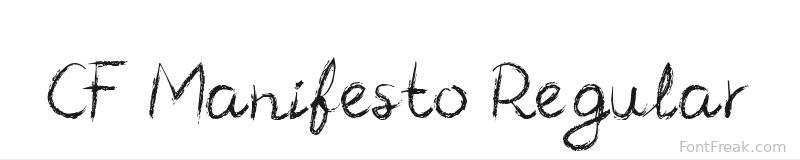
CF Manifesto Regular
CF Manifesto Regular by Cloutierfontes is a unique handwritten font that captures an organic and artistic flair. This font is characterized by its playful strokes and a casual, yet elegant appearance, making it a standout choice for various creative projects. The strokes exhibit a moderate weight, providing a nice balance between legibility and artistic expression. The slight variations in line thickness create a dynamic contrast that adds depth to any text, while the natural spacing enhances readability, making it perfect for both headings and body text.
The CF Manifesto Regular font is particularly suited for use in wedding invitations, where its charming style can evoke a sense of intimacy and warmth. It also shines in creative promotional materials such as movie posters, where its artistic flair can capture attention and convey a specific mood. Restaurant menus will benefit from its inviting character, making the dining experience feel more personal. Additionally, this font is ideal for social media graphics, allowing content creators to add a touch of personality to their posts.
Targeted towards graphic designers, small business owners, and content creators, CF Manifesto Regular provides a versatile option that can elevate any project. Its freeware license ensures accessibility, allowing users to incorporate this charming typeface without financial constraints.
What sets CF Manifesto Regular apart is its ability to combine a casual handwritten style with a polished aesthetic. This balance makes it an excellent choice for those looking to infuse their work with personality while maintaining professionalism. With its unique charm and versatility, the CF Manifesto Regular font free download is an essential addition to any designer's toolkit, ready to enhance creative endeavors across various platforms.